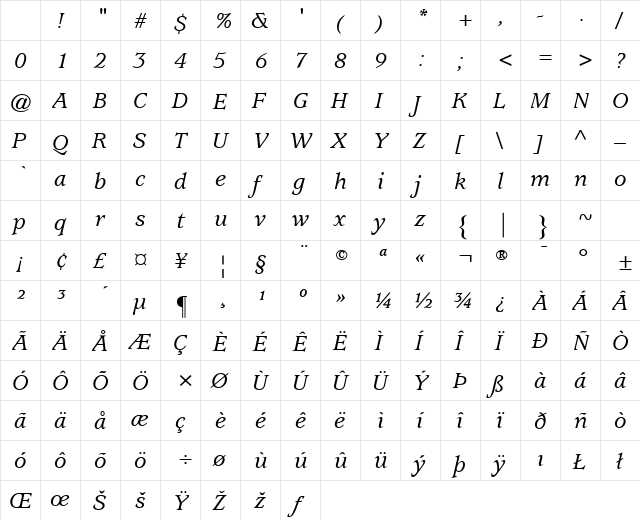
Exposition Medium SSi Medium Italic
Complete Exposition Medium SSi Medium Italic glyph index. Displaying only characters natively supported by Exposition Medium SSi Medium Italic font.
Design Context for Exposition Medium SSi
Exposition Medium SSi is a composed and adaptable typeface that performs quietly and consistently across a wide range of design contexts. The slanted form adds forward momentum and visual energy.
Pro Tip: Use Exposition Medium SSi for emphasis, pull quotes, and subheadings where its slanted energy can add rhythm to the layout.